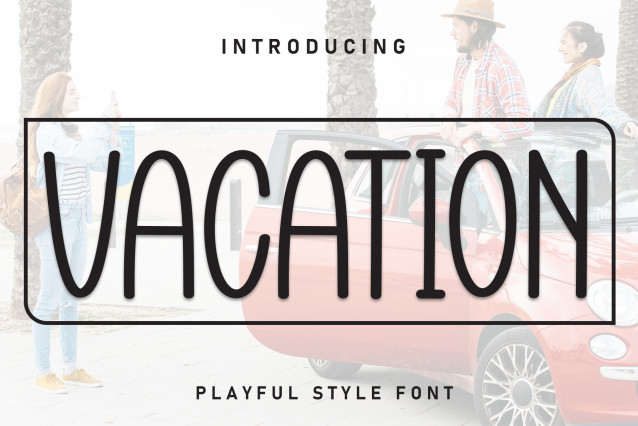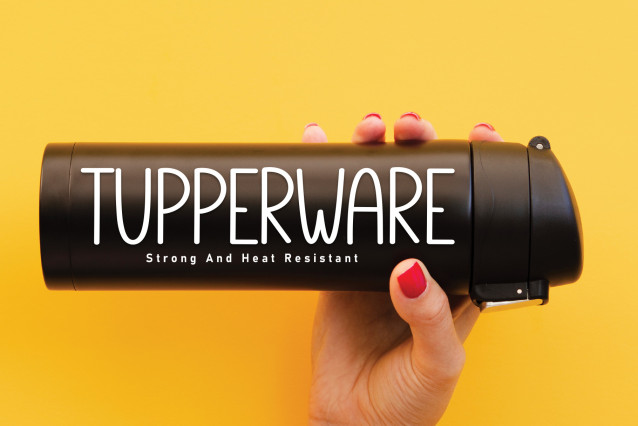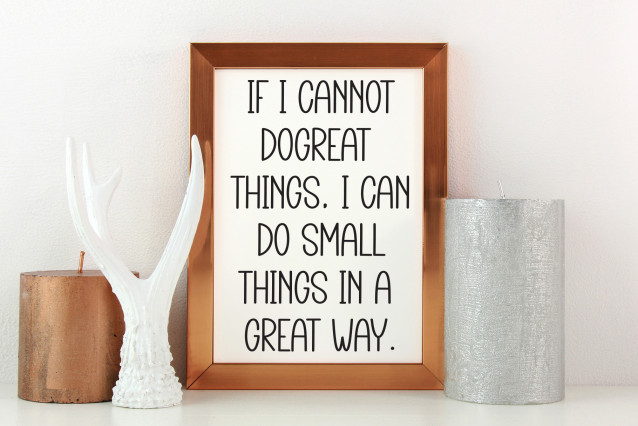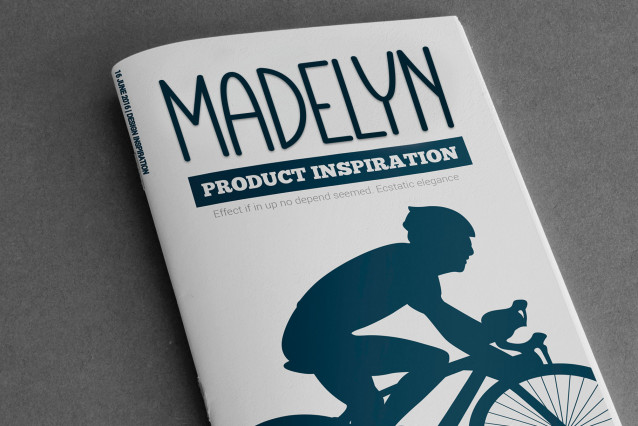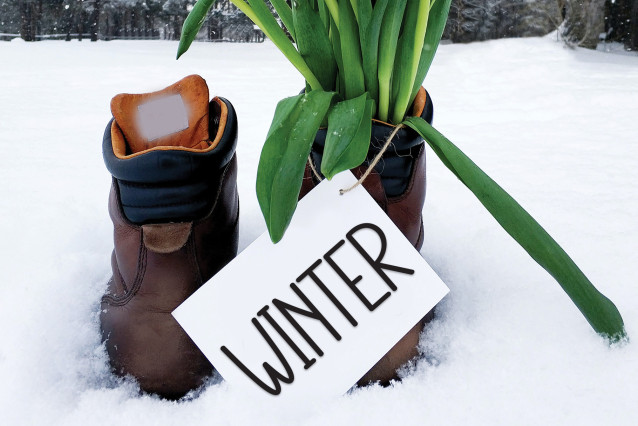
Vacation Display Font
Vacation Display Font is a fun and playful handwritten font that’s perfect for crafts, planners, KDP, stickers, greeting cards, and more. With its cute and friendly style, it works great for Cricut, sublimation, and creative DIY projects. Ideal for crafters, designers, and makers!